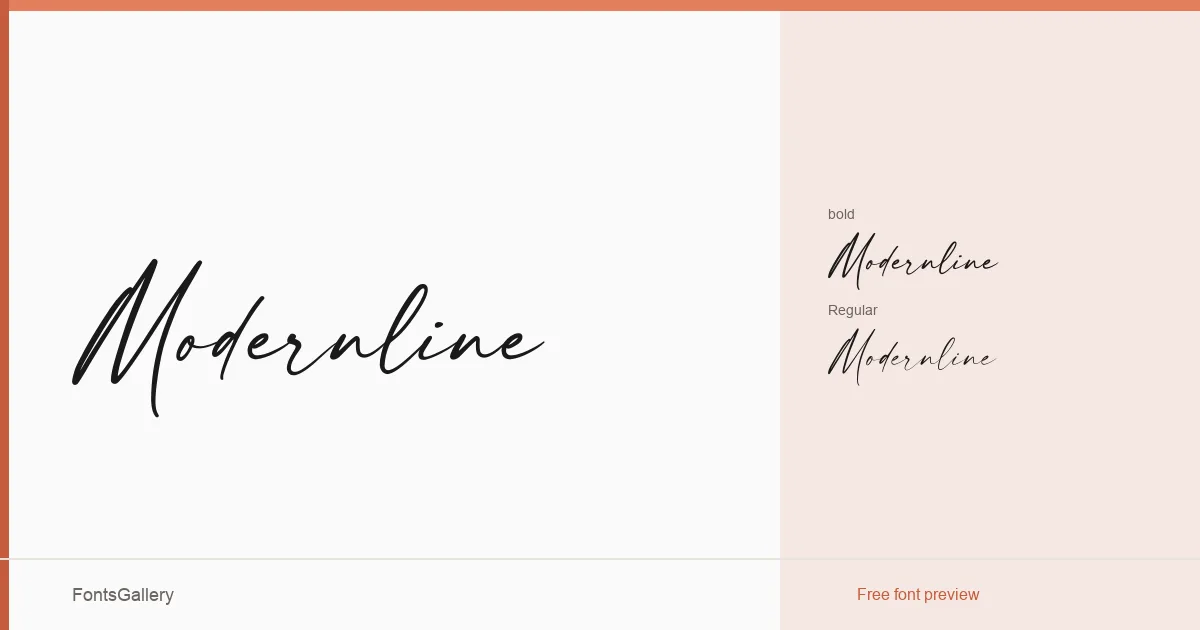
About Modernline Font
Modernline is a script typeface crafted by Ef Studio - Luthfi Ef, designed to embody elegance and modern sophistication. With its luxurious and romantic sensibility, it brings a refined, stylish character to any creative project. This font strikes a beautiful balance between contemporary design and timeless charm.
Modernline features fluid, flowing script letterforms that exude an elegant and romantic quality, making each character feel both graceful and intentional. Its modern construction gives it a luxury aesthetic, with clean, confident strokes that feel polished and upscale. The overall tone is sophisticated yet approachable, lending a sense of occasion to any typographic composition.
Modernline is ideally suited for logos, branding, wedding stationery, invitation cards, and social media visuals where a luxurious and elegant impression is desired. Its romantic character makes it a natural choice for wedding designers and lifestyle brands seeking a distinctive, high-end script. Pair it with Aresink for a harmonious script-forward layout, or with Helvetica to create a striking contrast between its expressive curves and clean, neutral structure.